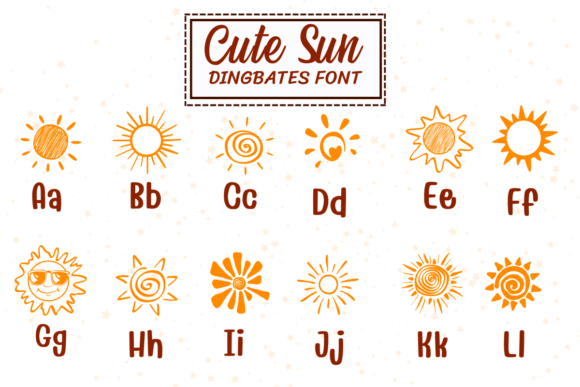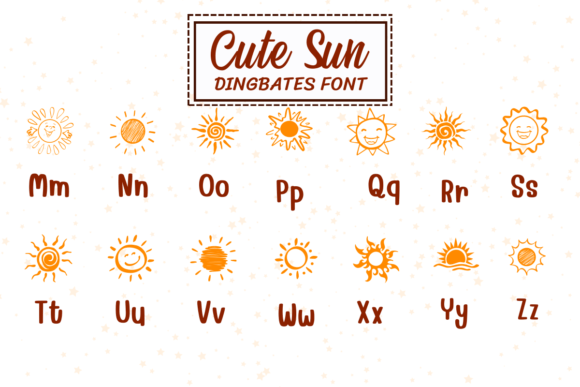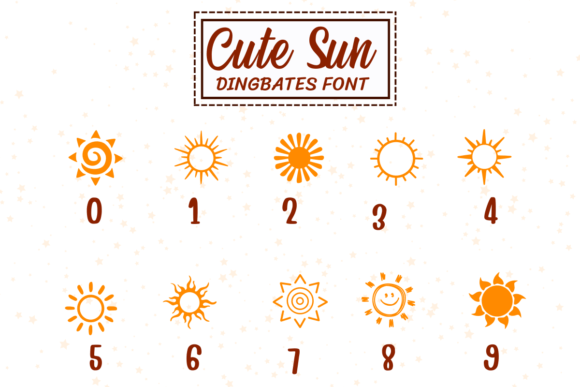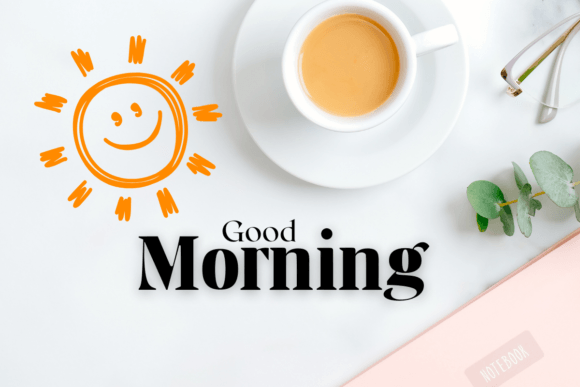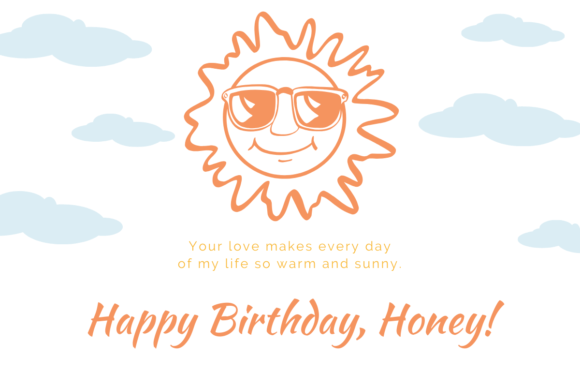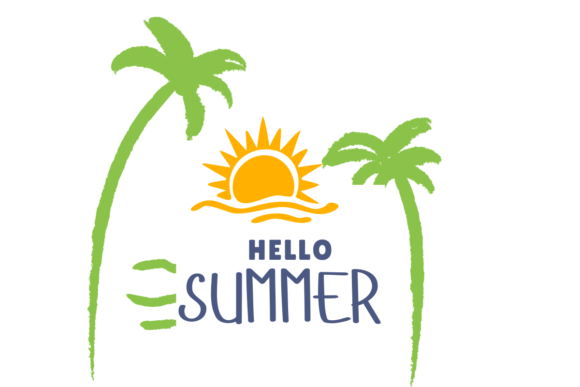
The Cute Sun Font: A Radiant Addition to Your Design Toolkit
I’ll never forget the time I was working on a wedding invitation project, trying to find the perfect font to capture the warmth and joy of the occasion. My client wanted something that would make their guests feel like they were in for a treat, but I was stuck in a font rut. That’s when I stumbled upon the Cute Sun font, a delightful dingbats font with a radiant theme that instantly brightened up my design. ✨
- ✨ The Cute Sun font is perfect for adding a touch of whimsy and playfulness to any design project.
- ✅ Its radiant theme makes it ideal for designs that require a sunny and optimistic feel.
- 💕 The font’s versatility allows it to be used in a wide range of creative projects, from wedding invitations to DIY crafts and decorations.
- 🎨 The font’s dingbats style offers a unique and creative way to add visual interest to your designs.
While the Cute Sun font is a fantastic addition to any design toolkit, there are a few things to keep in mind. 🤔
- ⚠️ The font’s dingbats style may not be suitable for body text or long blocks of text, as it can be a bit tricky to read.
- ⚠️ Some of the glyphs and stylistic alternates may not work well at smaller font sizes.
The Cute Sun font was inspired by the designer’s love of sunshine and warmth. Growing up in a sunny climate, the designer was always drawn to the bright and cheerful colors of the sun. She wanted to create a font that would capture that same feeling of joy and optimism, and the Cute Sun font was born. 🌞
| What type of projects is the Cute Sun font best suited for? | The Cute Sun font is perfect for a wide range of creative projects, including wedding invitations, DIY crafts and decorations, logos, and more. |